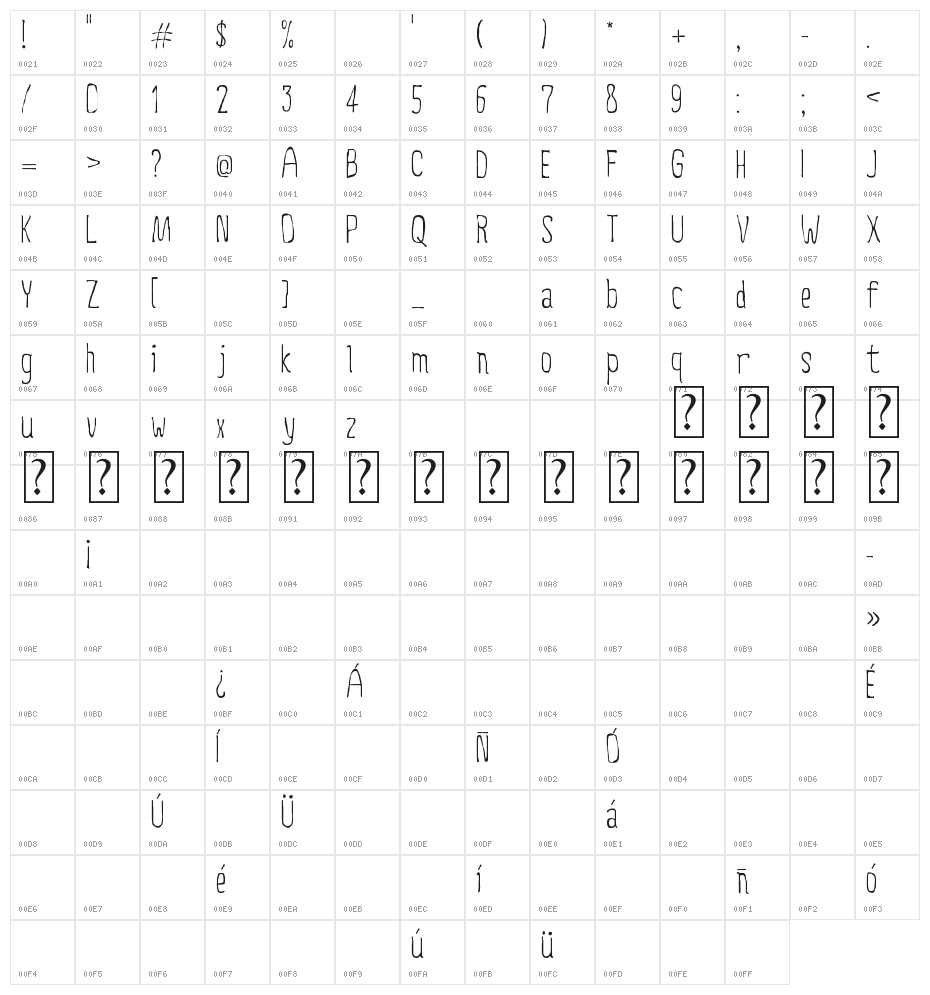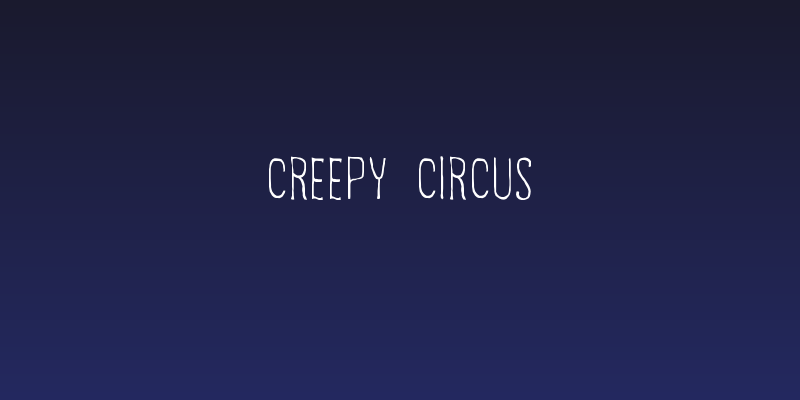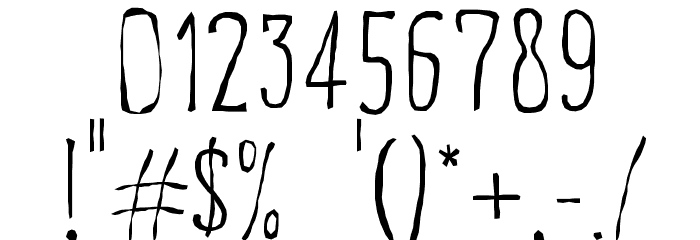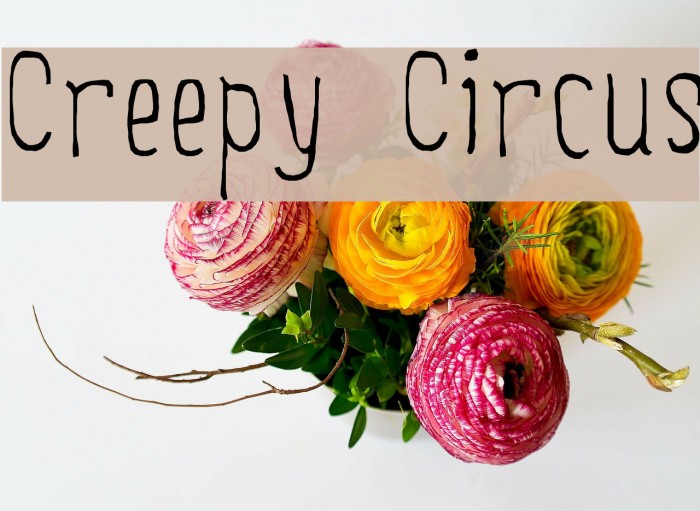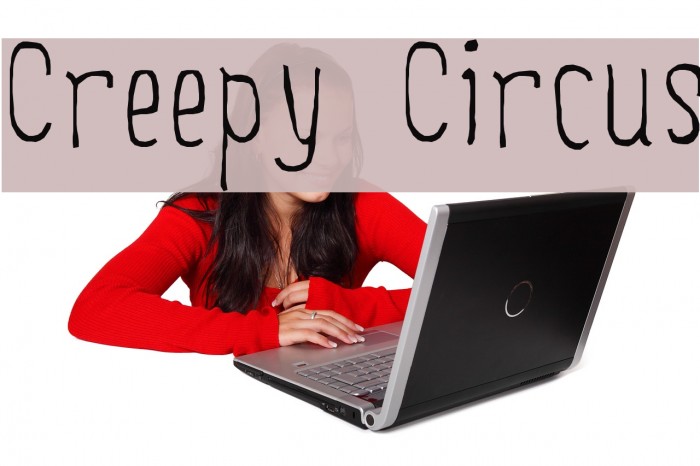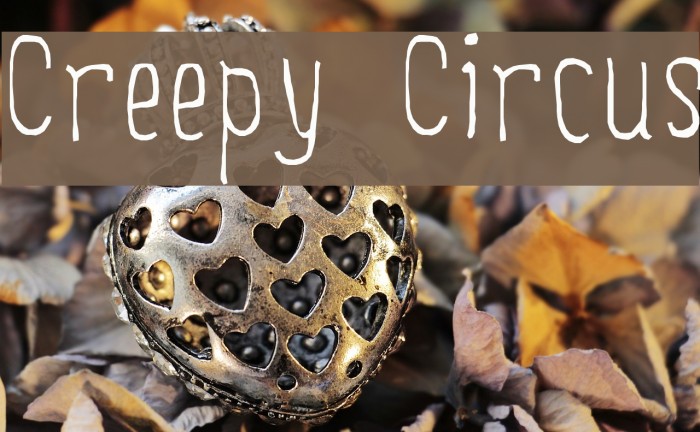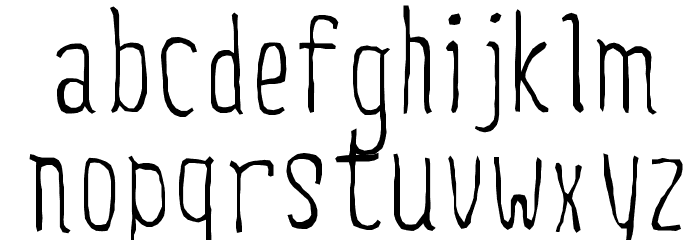
Creepy Circus Font
Creepy Circus Description
This font exudes a whimsical yet eerie vibe, reminiscent of a vintage circus poster with a touch of the macabre. The characters are tall and narrow, with uneven strokes that give them a hand-drawn appearance. The uppercase letters are particularly elongated, while the lowercase letters maintain a quirky, playful style. Numbers and special characters follow the same design ethos, adding to the overall eclectic feel. The irregularities in the stroke widths and the slightly distorted shapes contribute to its unique, unsettling charm, making it perfect for themes that require a blend of nostalgia and spookiness.
| Overall Style | Vintage, Decorative |
| Use Case | Headlines, Posters, Themed Events |
| Proposed Projects | Ideal for Halloween-themed designs, circus posters, horror movie titles, and escape room branding. |